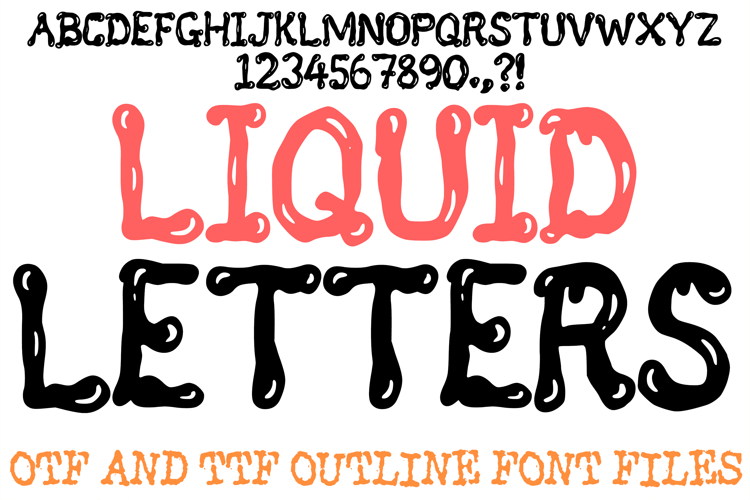
The Liquid Letters Font is a bold, high-gloss display typeface featuring voluminous, rounded letterforms that mimic the texture of thick, dripping ink or molten syrup. Characterized by its smooth curves and strategic "highlight" marks that suggest a reflective surface, this font is a premier choice for designers working on vibrant product packaging, street-style branding, energetic poster designs, and modern social media content.
The design creates a sense of tactile fluidity, making every word feel freshly poured and full of life. Whether you are building an identity for a creative studio or designing high-impact apparel prints, this font provides a fun, high-contrast aesthetic that is both playful and remarkably legible.
Why Your Designs Will Stand Out
Glossy Reflective Detail: Built-in highlight accents give the characters a 3D, "wet" look that catches the eye and adds a layer of professional polish.
Fluid Drip Accents: Stylized droplets at the terminals of the letters provide a sense of gravity and movement, perfect for liquid-themed branding.
Voluminous Bubble Construction: The heavy, rounded weight of the alphabet provides a friendly and approachable "pop" aesthetic.
High-Visibility Display: Bold, thick outlines and solid forms ensure that your headlines remain impactful and clear against any digital or print background.